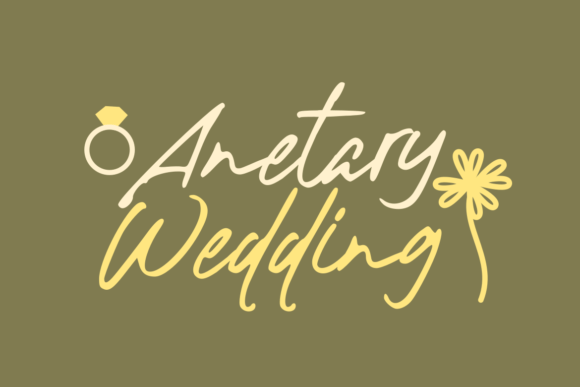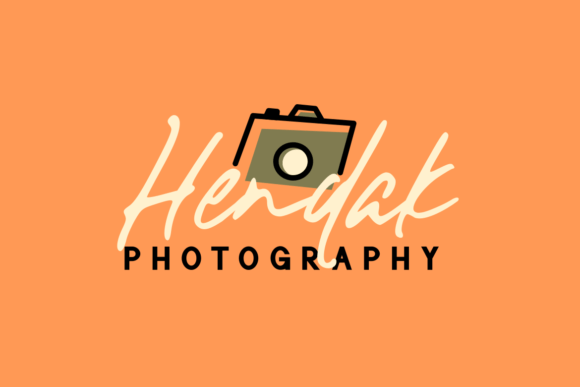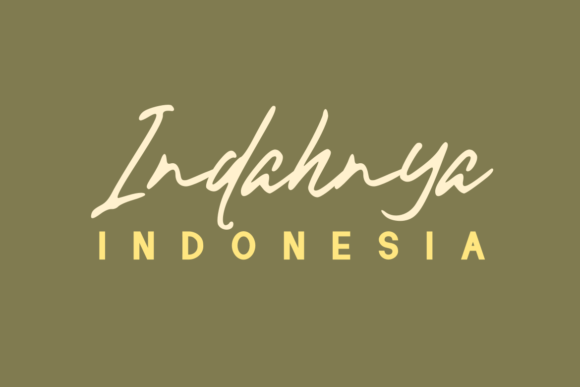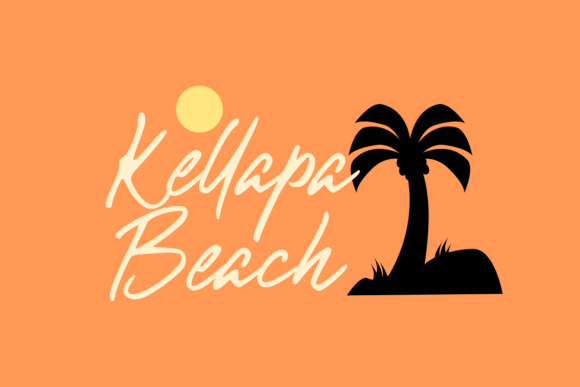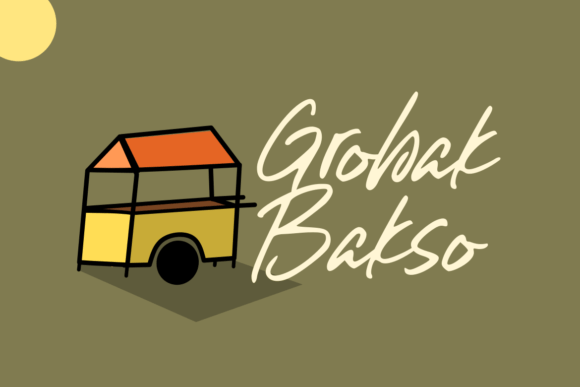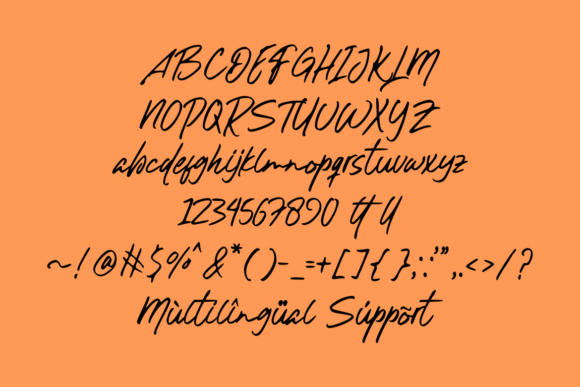
Introducing Ballong Font: Elevate Your Designs with a Touch of Elegance
Are you a designer, crafter, or creative looking for a font that can add a touch of sophistication and whimsy to your projects? Look no further than Ballong Font! This beautiful handwritten font is perfect for bringing your designs to life, whether you’re working on headings, logos, ads, printed quotes, packaging, websites, social media posts, branding, or more.
The Versatility of Ballong Font
One of the standout features of Ballong Font is its incredible versatility. Its elegant, cursive strokes make it suitable for a wide range of design applications. Here are just a few ways you can use Ballong Font to elevate your designs:
- Headings and Titles: Add a touch of sophistication to your headings and titles with Ballong Font’s beautiful, flowing script.
- Logos and Branding: Create a lasting impression with a custom logo or branding that incorporates Ballong Font’s unique charm.
- Advertising and Marketing: Make your ads and marketing materials stand out with Ballong Font’s eye-catching, hand-drawn aesthetic.
- Printed Quotes and Inspirational Messages: Add a touch of elegance to your printed quotes and inspirational messages with Ballong Font’s beautiful, cursive script.
- Packaging and Product Design: Give your products a premium feel with Ballong Font’s sophisticated, high-end look.
- Websites and Social Media: Bring your online presence to life with Ballong Font’s unique, hand-drawn style.
Why Choose Ballong Font?
So why should you choose Ballong Font for your design projects? Here are just a few reasons:
- Unique and Eye-Catching: Ballong Font’s hand-drawn aesthetic sets it apart from more traditional fonts, making it perfect for designers looking to create something truly unique.
- Highly Versatile: Whether you’re working on a logo, heading, or social media post, Ballong Font’s versatility makes it suitable for a wide range of design applications.
- Elegant and Sophisticated: Ballong Font’s elegant, cursive strokes add a touch of sophistication to any design, making it perfect for high-end brands and designers.
- Easy to Read: Despite its elegant, cursive script, Ballong Font is highly legible, making it perfect for designs where readability is key.
Tips for Using Ballong Font
Here are a few tips for getting the most out of Ballong Font:
- Experiment with Different Sizes: Ballong Font looks great in a variety of sizes, from large headings to smaller body text.
- Play with Color: Ballong Font’s elegant, cursive strokes look great in a range of colors, from bold and bright to soft and pastel.
- Mix and Match: Don’t be afraid to mix and match Ballong Font with other fonts to create a unique, eye-catching design.
- Use it Sparingly: While Ballong Font is beautiful, it can be overwhelming if overused. Use it sparingly to create a lasting impression.
| Font Name | Ballong Font |
| Author | GFRcreative |
In conclusion, Ballong Font is a beautiful, versatile font that’s perfect for designers, crafters, and creatives looking to add a touch of elegance and whimsy to their designs. With its elegant, cursive strokes and highly legible design, Ballong Font is suitable for a wide range of design applications, from headings and logos to social media posts and packaging. So why not give Ballong Font a try and see how it can elevate your designs?